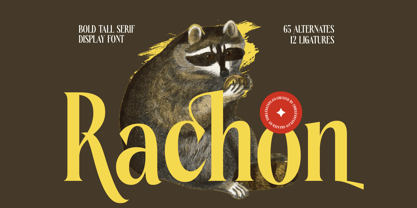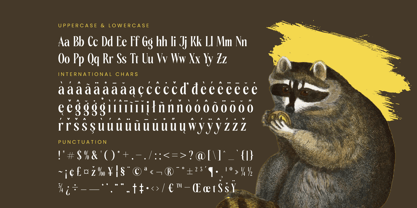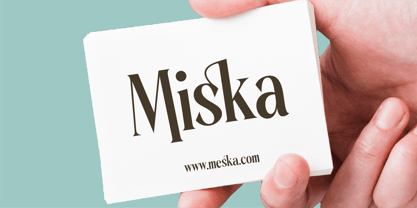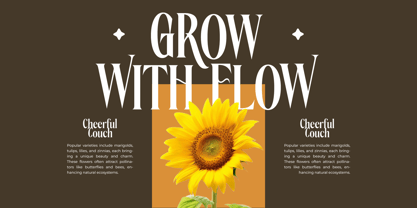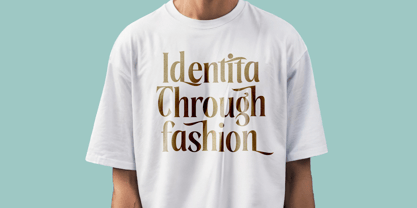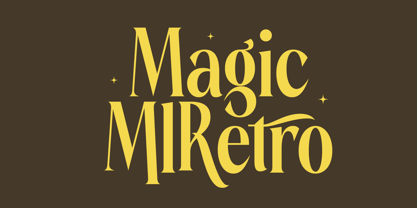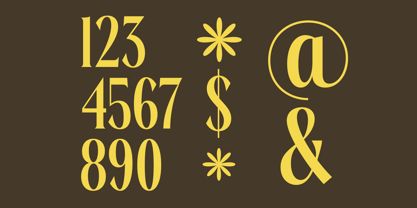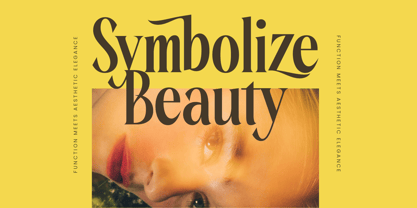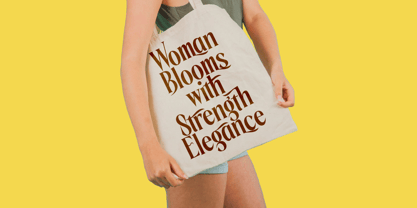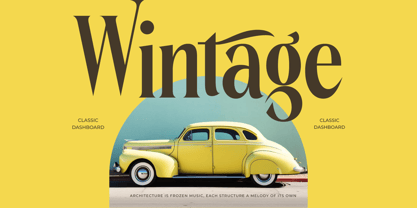
The Rachon Font Family was designed by Heru Utama Putra and published by Timelesstype Studio. Rachon contains 2 styles and family package options. More about this family
Rachon - Bold Tall Serif Display Font , from Timelesstype, Suitable for any projects such as: logos, branding projects, homeware designs, product packaging, mugs, quotes, posters, shopping bags, t-shirts, book covers, name card, invitation cards, greeting cards, label, photography, watermark, special events, and all your other luxury and beautiful projects that need a Luxury Serif taste.
Rachon